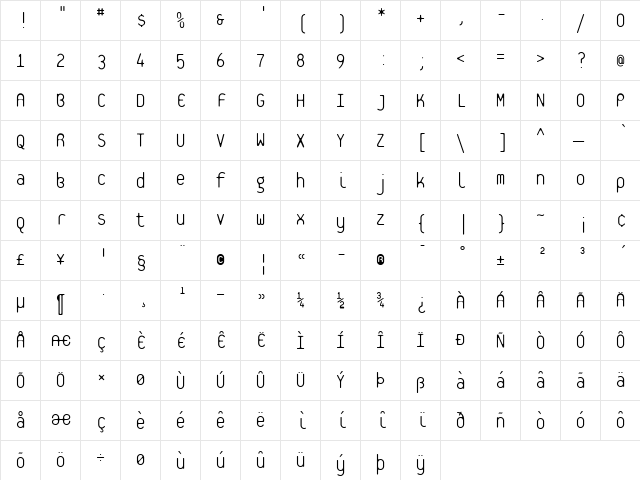
Boks Thin Font Preview
Boks Thin
Boks Thin Font Details
| Style | Thin |
| Foundry | \(C\) Emigre, Inc |
| Copyright | Copyright \(C\) 1994, Emigre, Inc., Designed by Conor Mangat |
Design Context for Boks Typeface
Boks takes a measured approach to typography — its balanced proportions and neutral character make it a reliable workhorse for both digital and print work. The delicate stroke weight brings airiness and refinement to layouts.